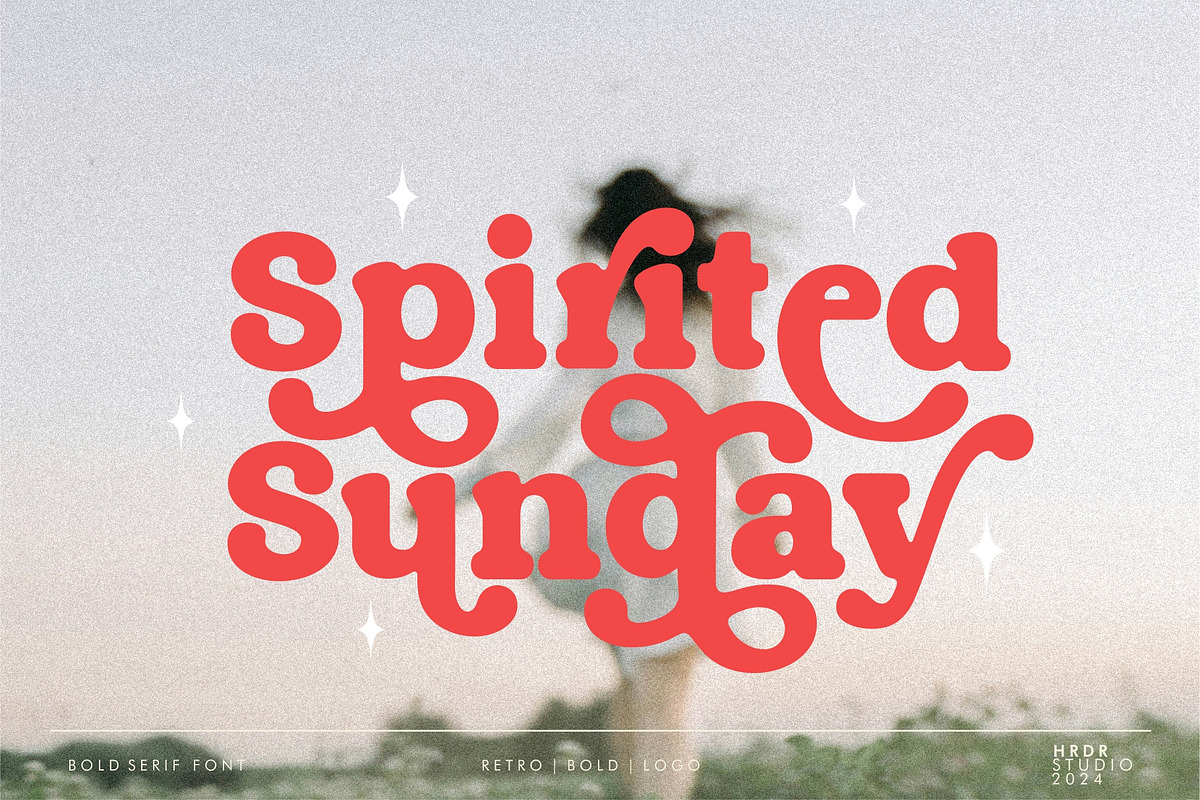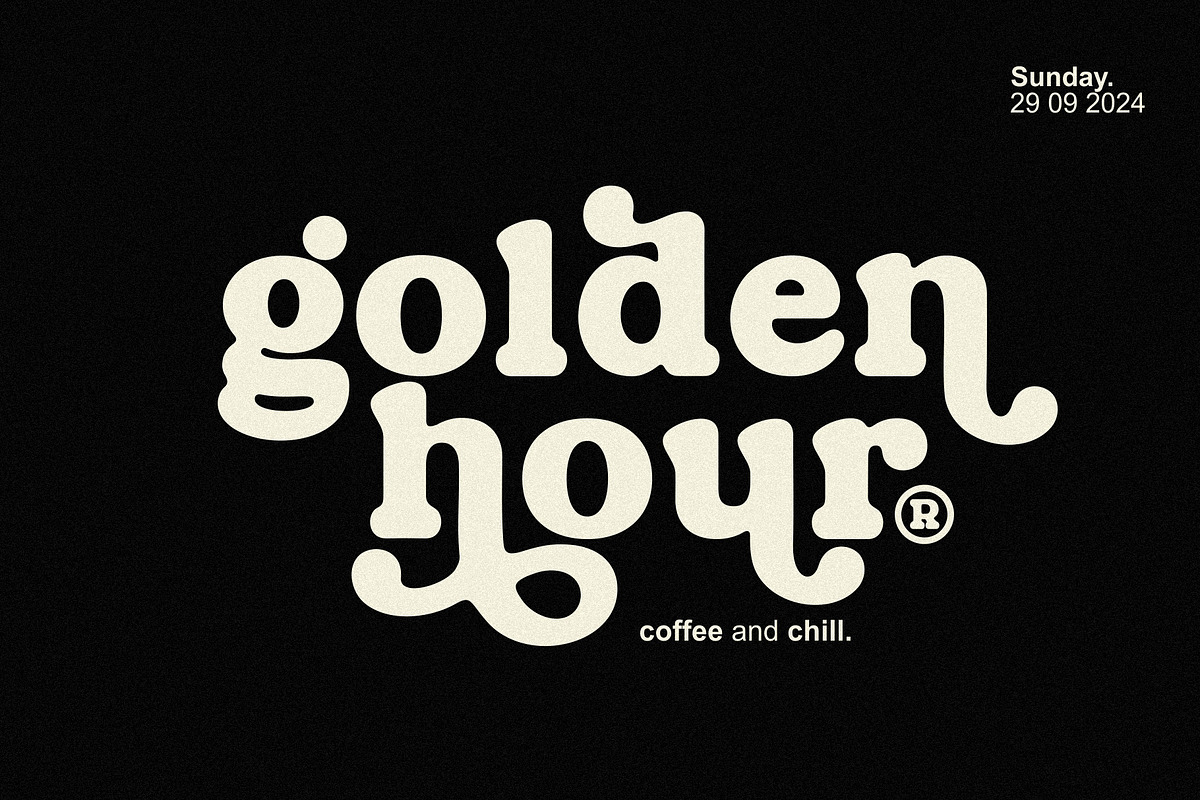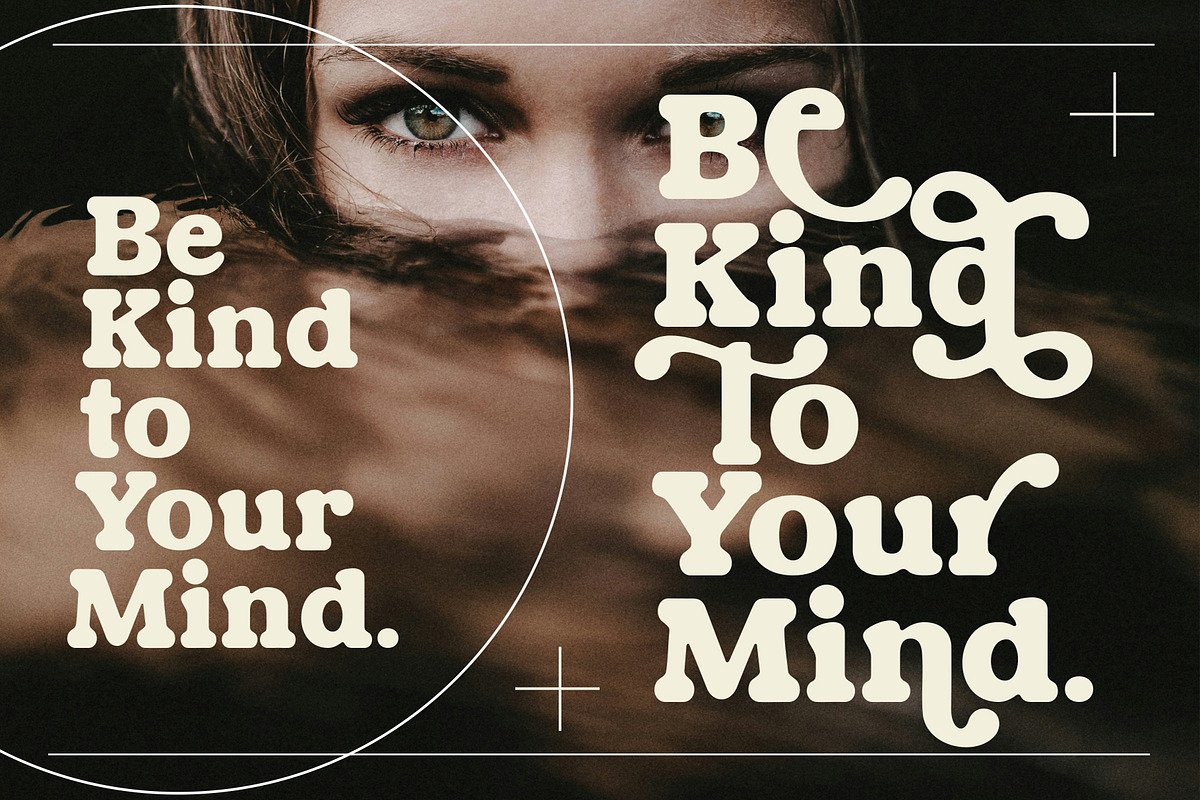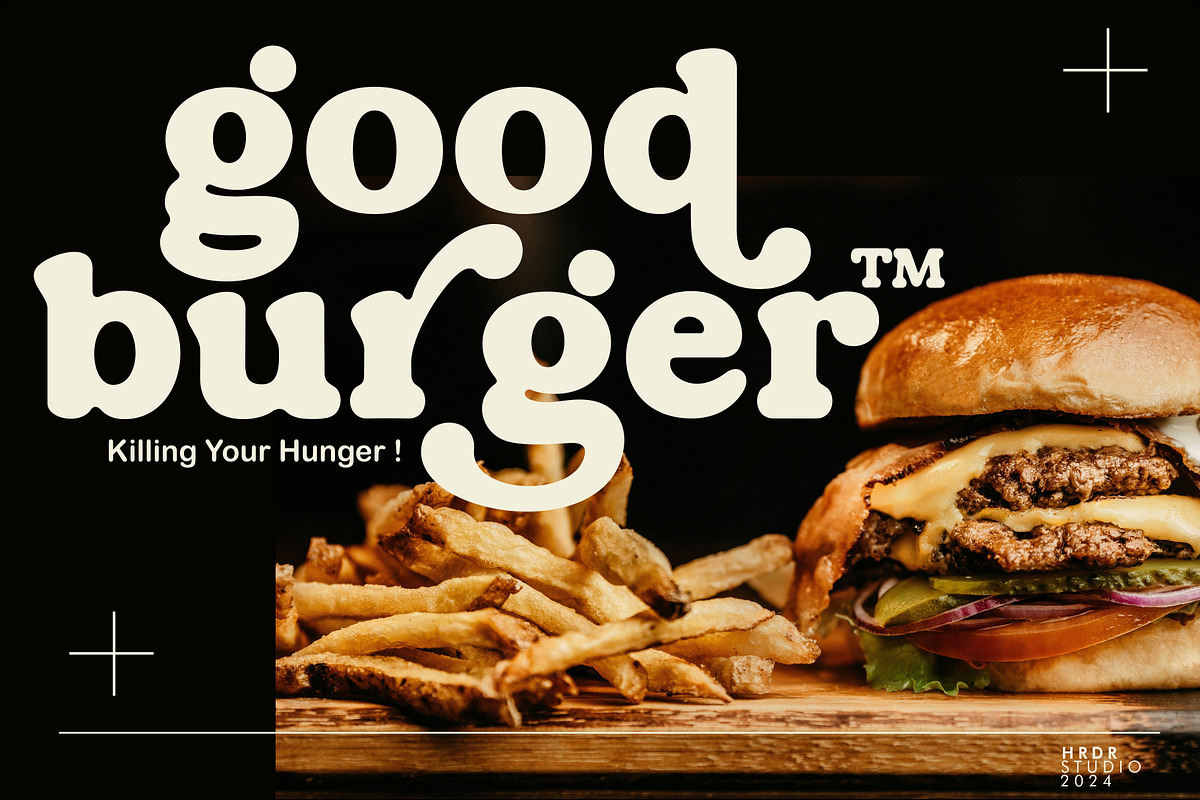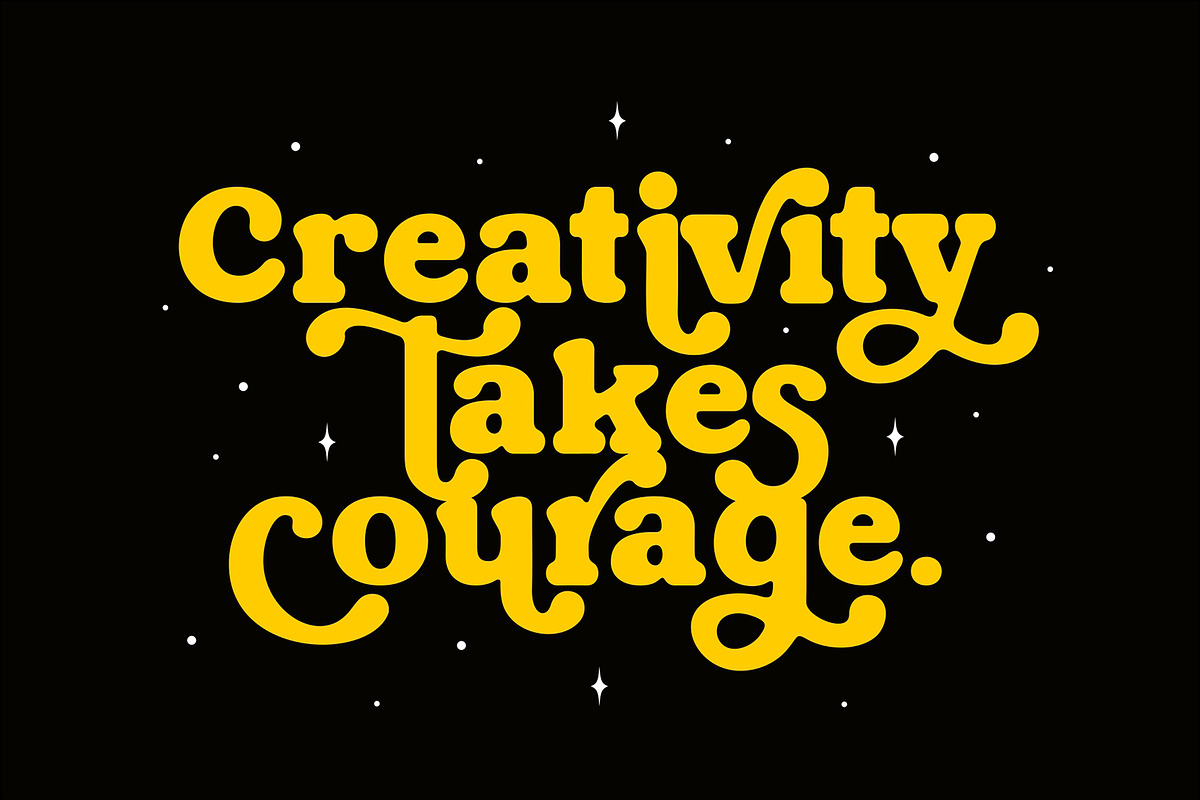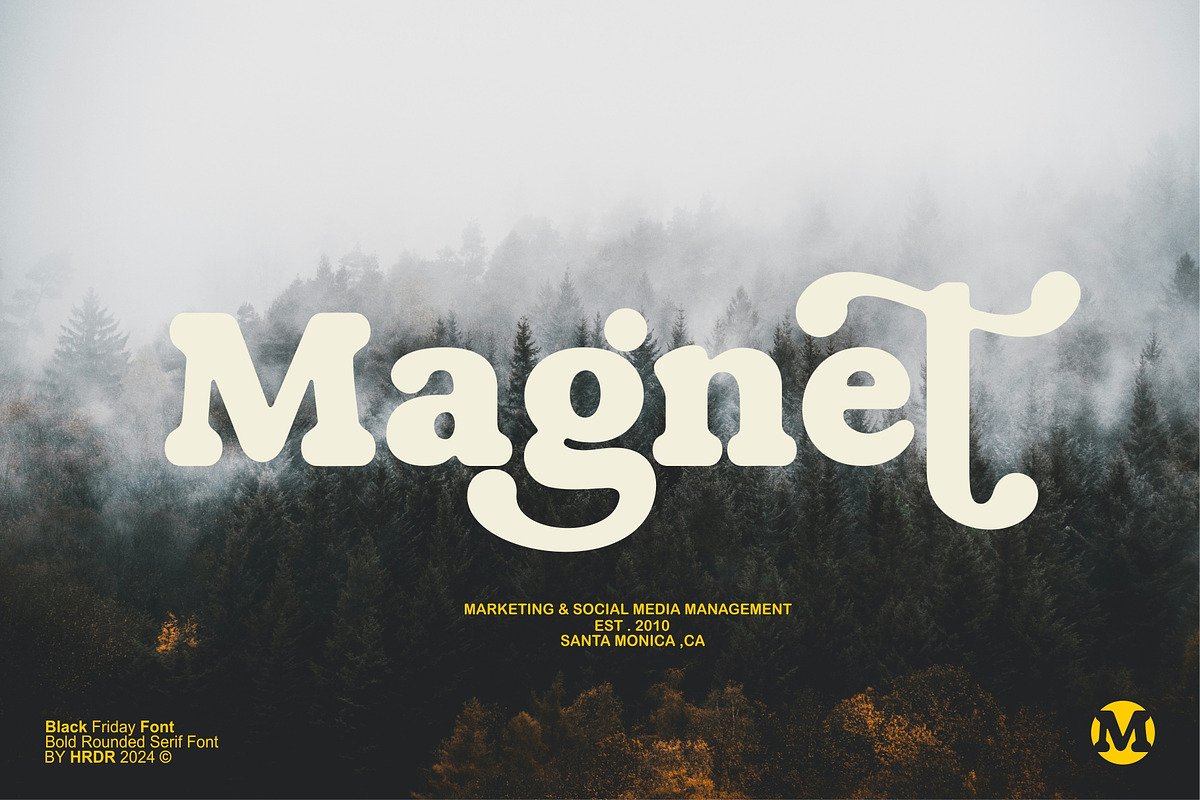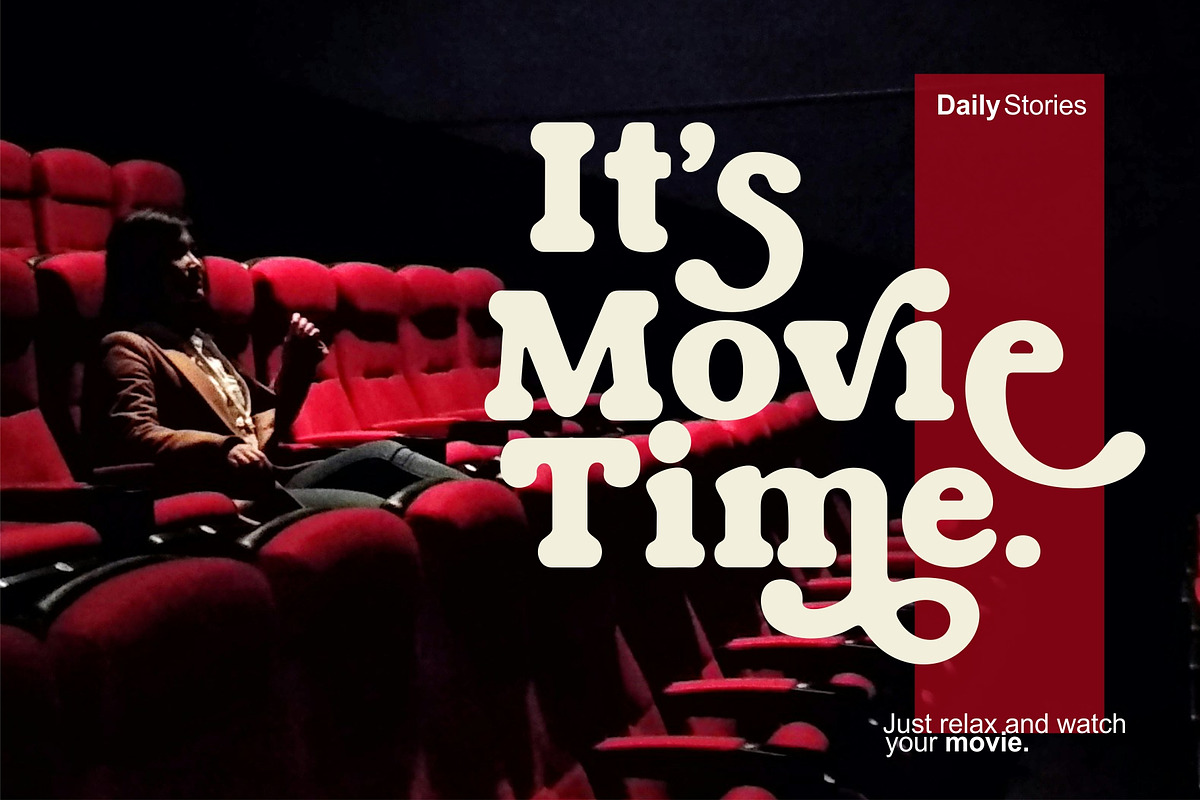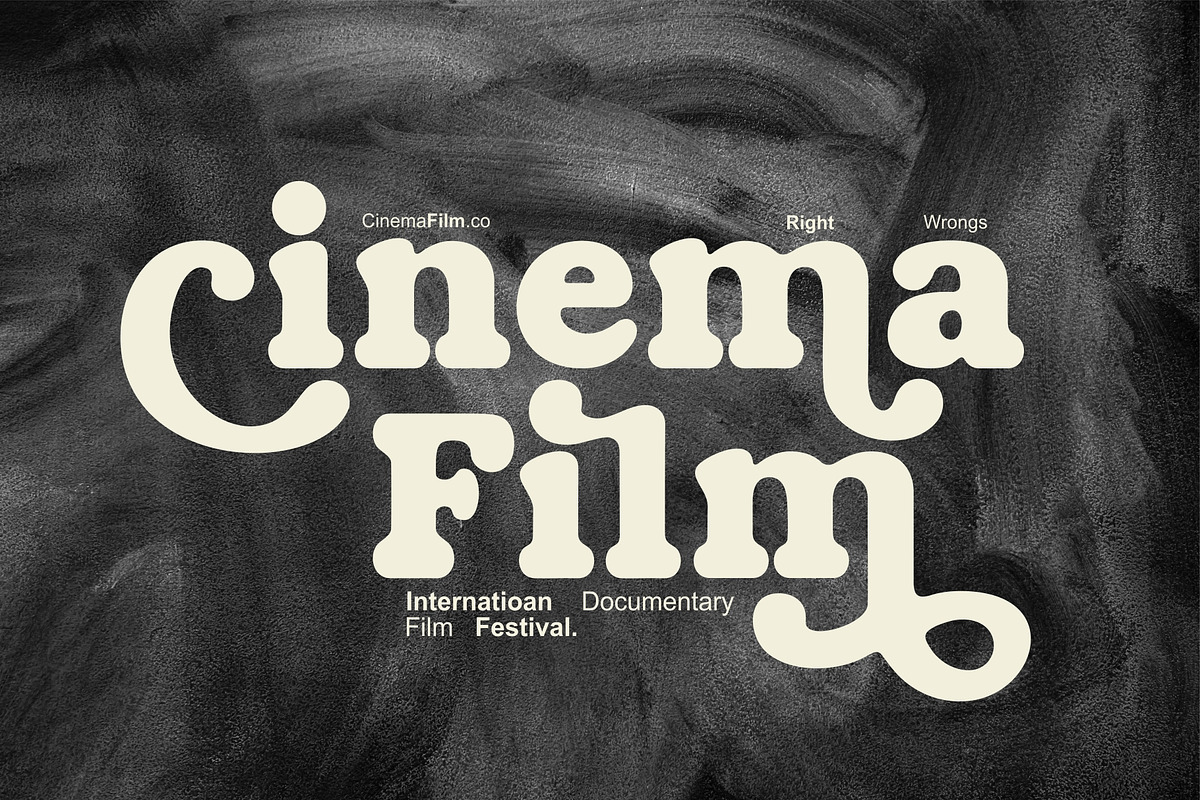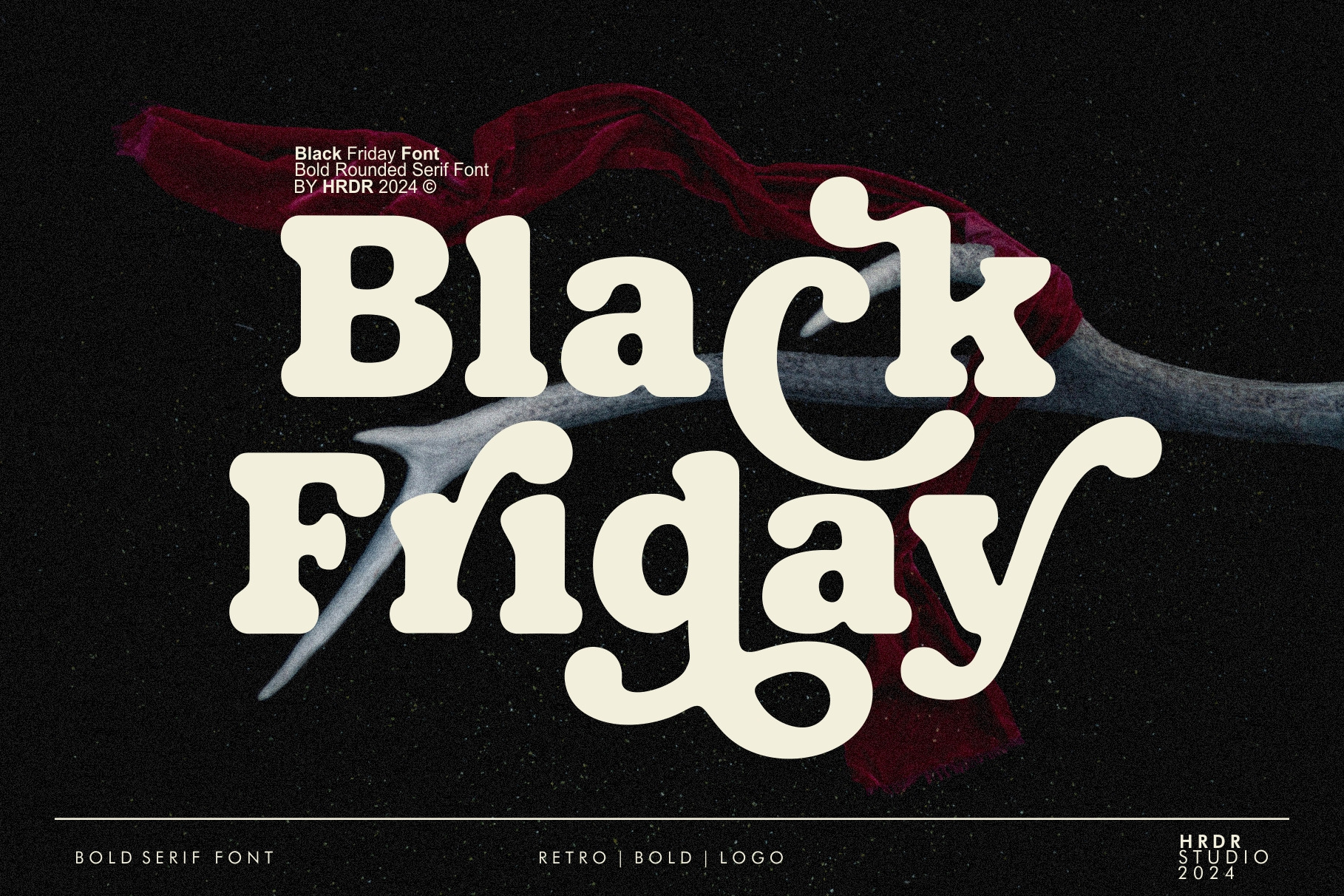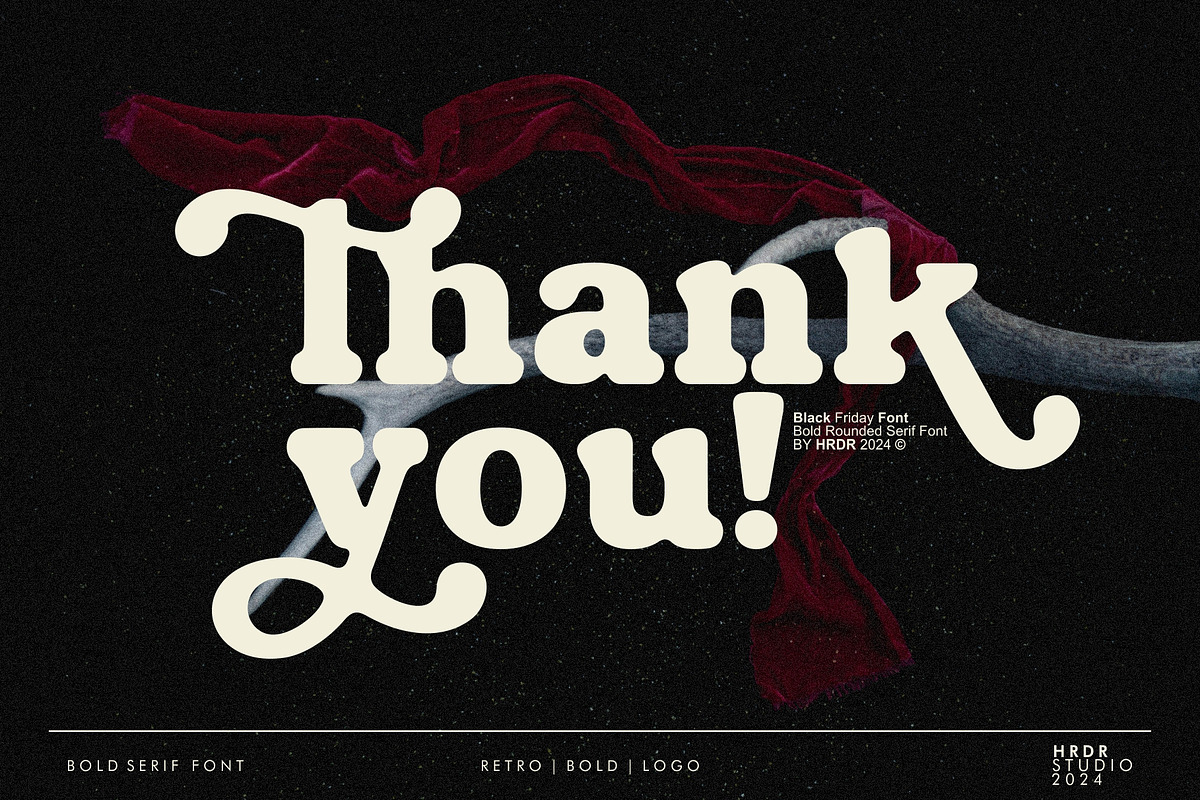
Black Friday - Bold Serif Font
Meets Black Friday, A new display font with Bold style on a rounded serif typefaces It generates a lot more fun, more trendy and Elegant. The font features slightly rounded edges, adding a subtle softness to its otherwise strong and assertive design.
This font is very suitable for suitable element for nostalgic themed designs, making a poster, vintage or retro stuff, fashion brand, magazine layout, food & beverages packaging, quotes, or simply as a stylish text overlay to any background image.
- numeric & Multilingual support
- Stylistic Alternates with ( Ss01,Ss02, Ss03, Ss04 )